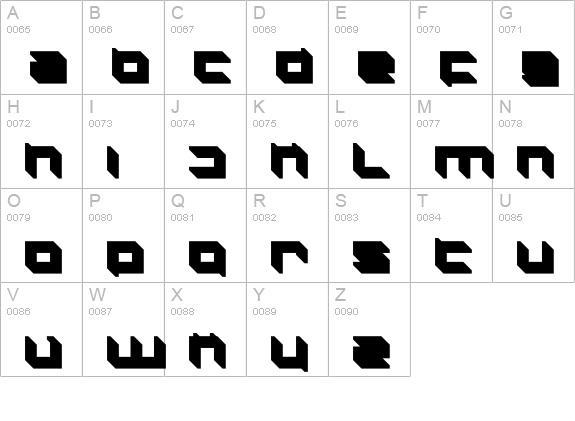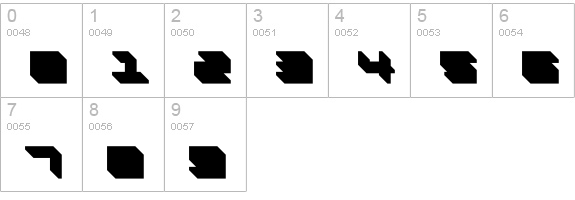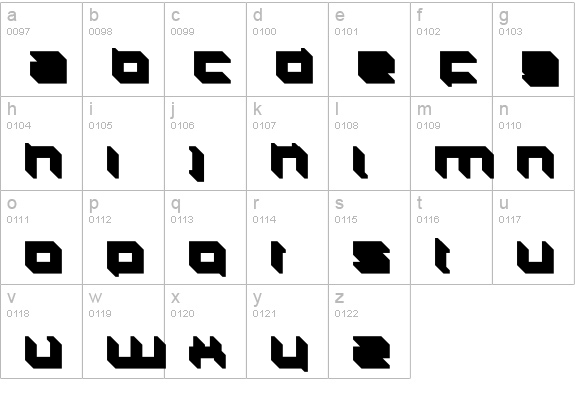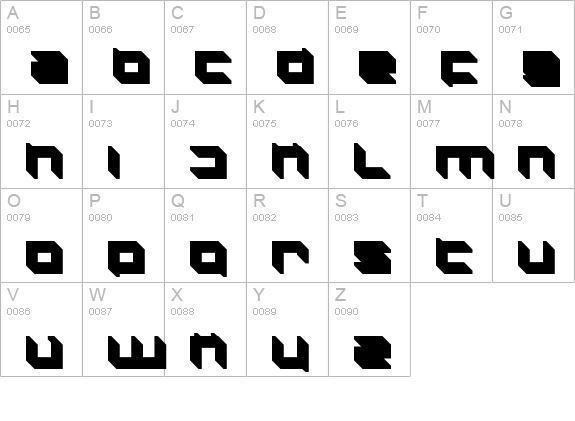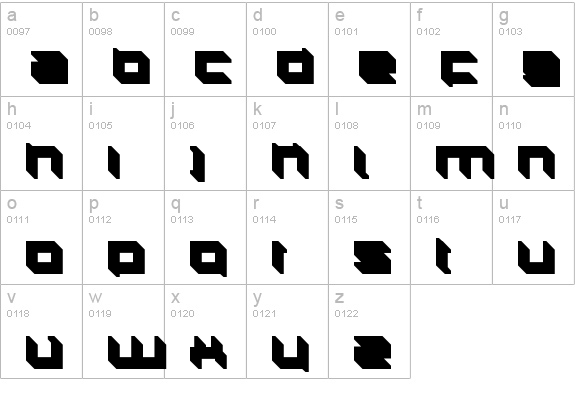
DS SQR553DR Font Details
The DS SQR553DR font is a modern and stylish typeface that exudes elegance and sophistication. With its sleek lines and sleek design, this font is perfect for adding a touch of class to any project. Whether you are designing a logo, creating a poster, or working on a website, the DS SQR553DR font is sure to make a bold statement. One of the best things about the DS SQR553DR font is that it is completely free to download. You can easily access this font and start using it in your designs right away. Simply visit FontsMarket.com to get your hands on this amazing font and take your projects to the next level. With its unique style and versatility, the DS SQR553DR font is a must-have for any designer looking to make a lasting impression.